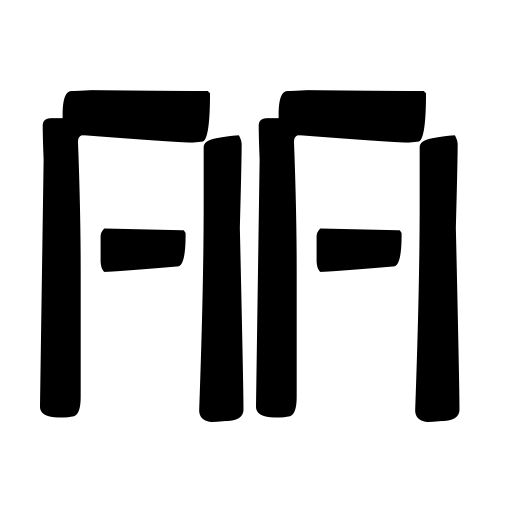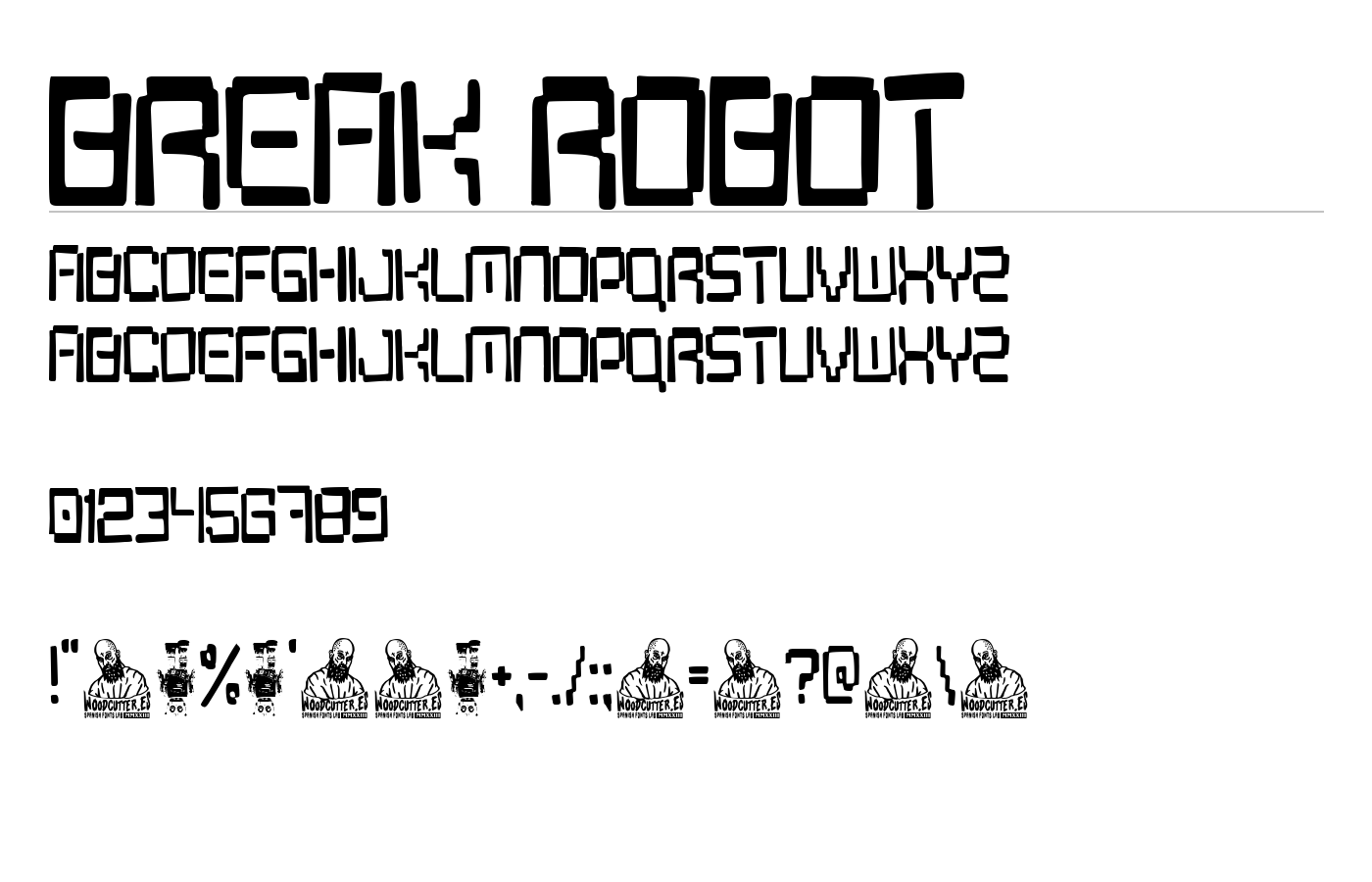
Break Robot is a bold, condensed sans serif font with a futuristic, slightly mechanical feel, characterized by its blocky, irregular shapes and moderate stroke contrast. Its quirky, angular letterforms and tech-inspired style make it perfect for edgy headlines, sci-fi themes, and creative branding where a unique, modern look is desired. This font stands out in posters, logos, and digital designs that aim to capture attention with a distinct and unconventional personality.
Break Robot Font
About Break Robot Font